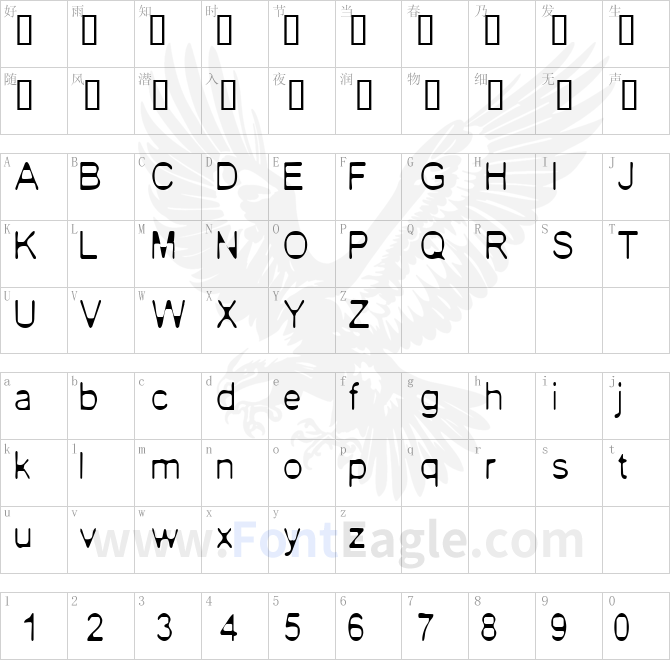
- Font name:BN BoyfriEnd
BN-BoyfriEnd is a great font, widely used in graphic design, single-page menu design, poster design and other fields, and is deeply loved by designers.BN-BoyfriEnd download.